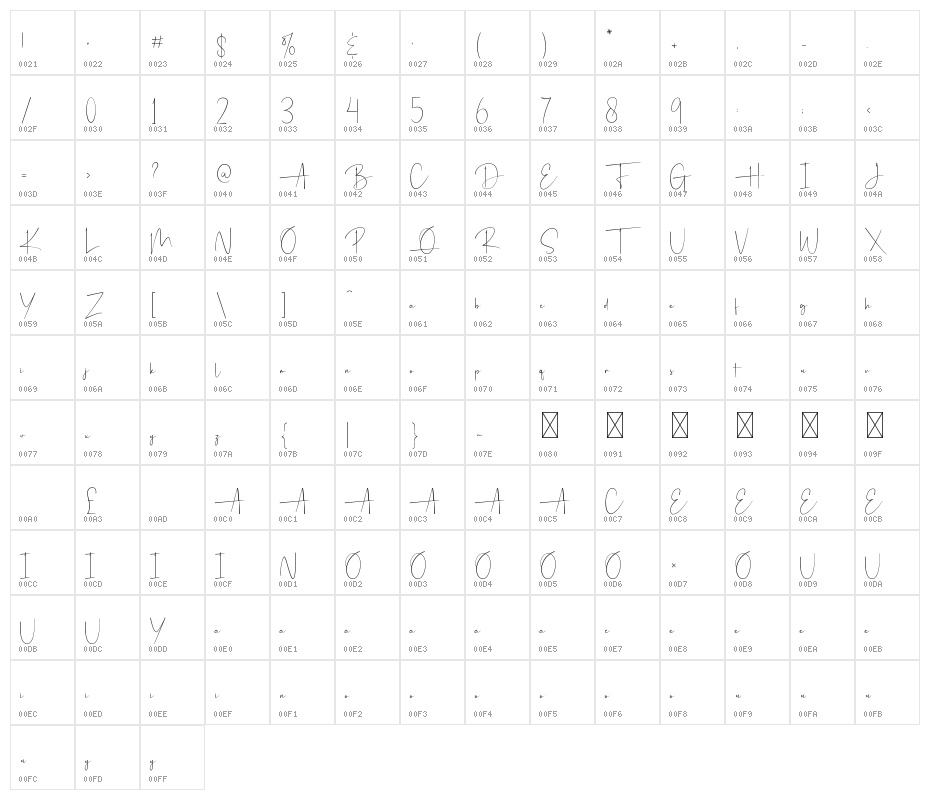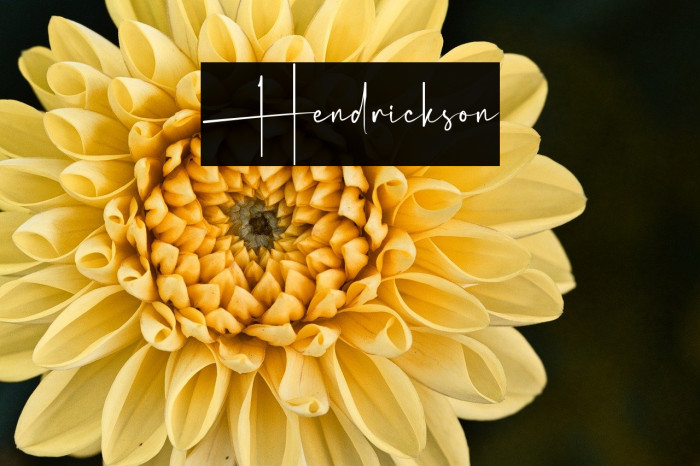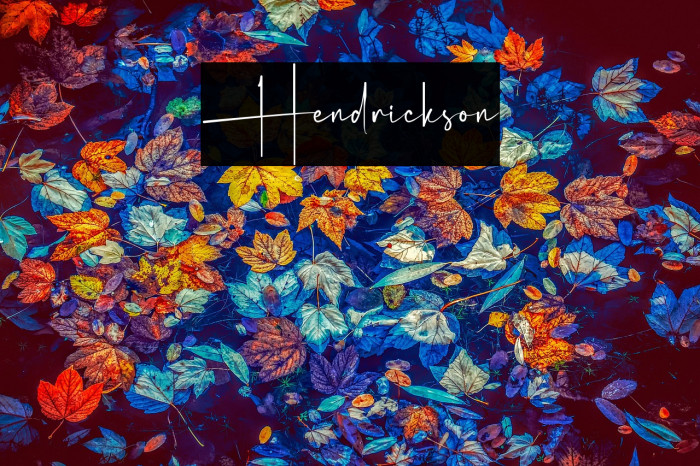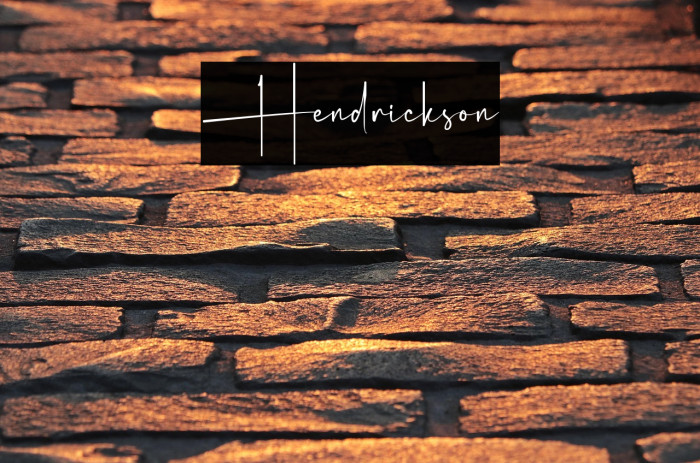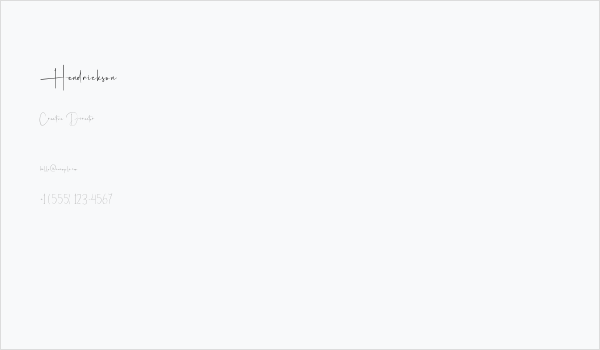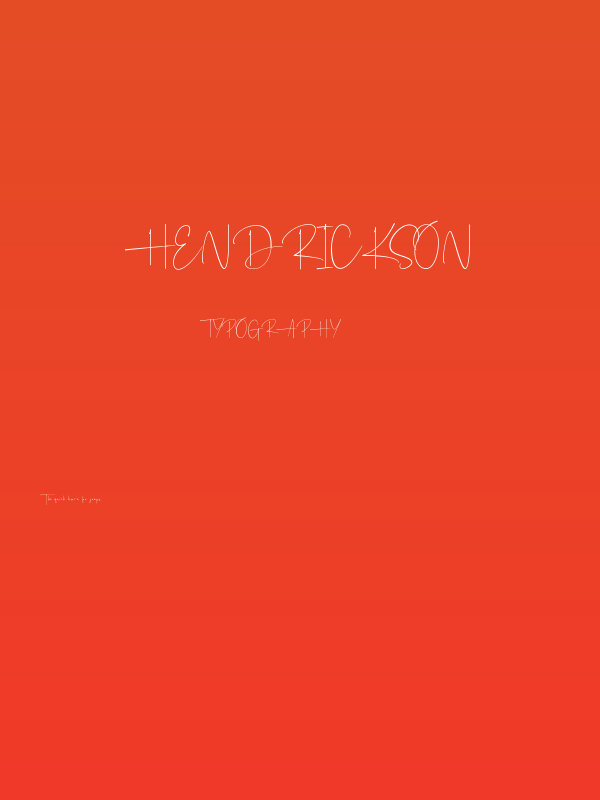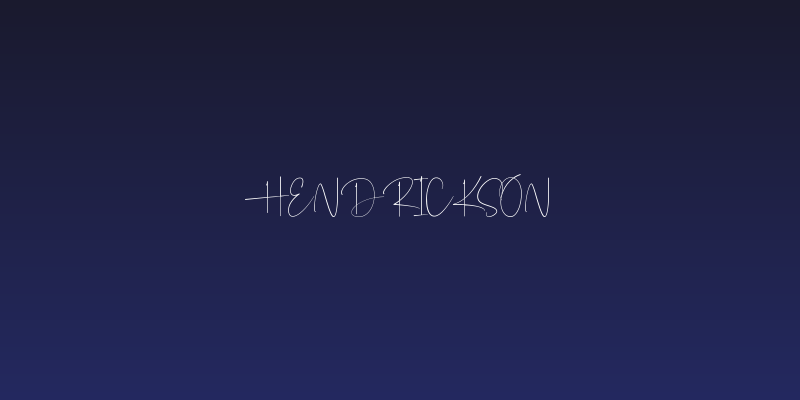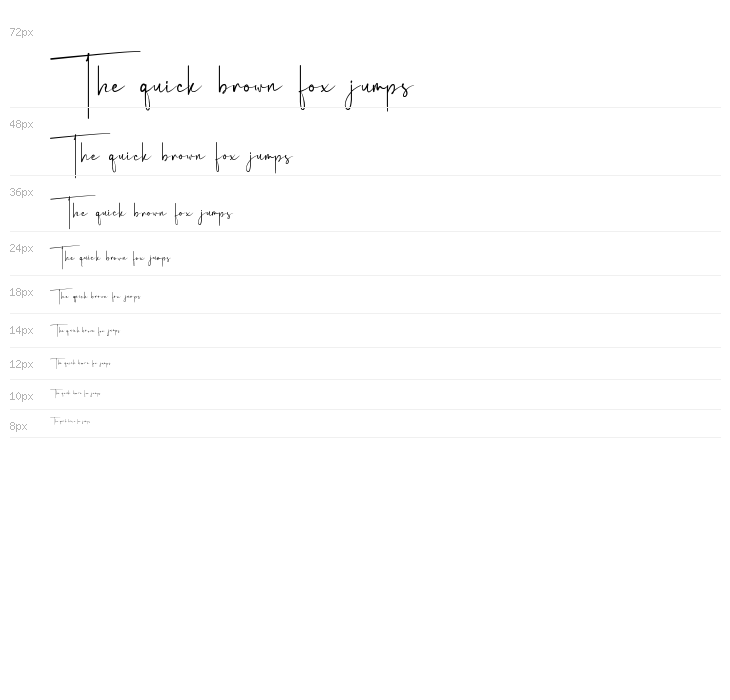
Hendrickson Font
| Caso d'uso | Logos, Artistic projects, Invitations |
| Progetti proposti | Ideal for creative projects such as invitations, greeting cards, artistic posters, and branding materials that require a personal touch. |